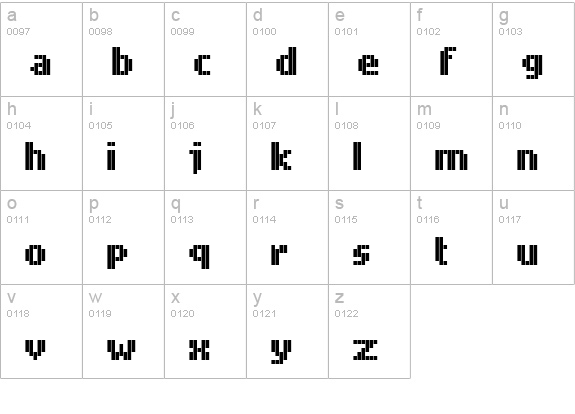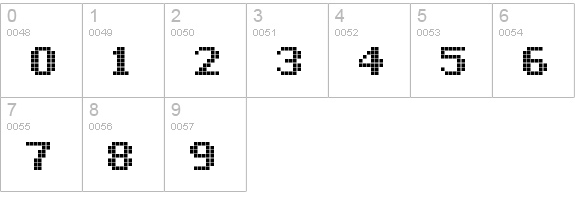
Mobile Font Font Details
Introducing Mobile Font - a sleek and modern typeface that is perfect for all your mobile design needs. This versatile font is ideal for creating stylish app interfaces, eye-catching website headers, and captivating social media graphics. With its clean lines and contemporary feel, Mobile Font is sure to make your text pop and stand out from the crowd. Best of all, Mobile Font is completely free to download at FontsMarket.com. That's right - you can elevate your design projects without breaking the bank. Whether you're a seasoned designer or just starting out, this font is a must-have in your creative toolkit. So why wait? Download Mobile Font today and take your designs to the next level!